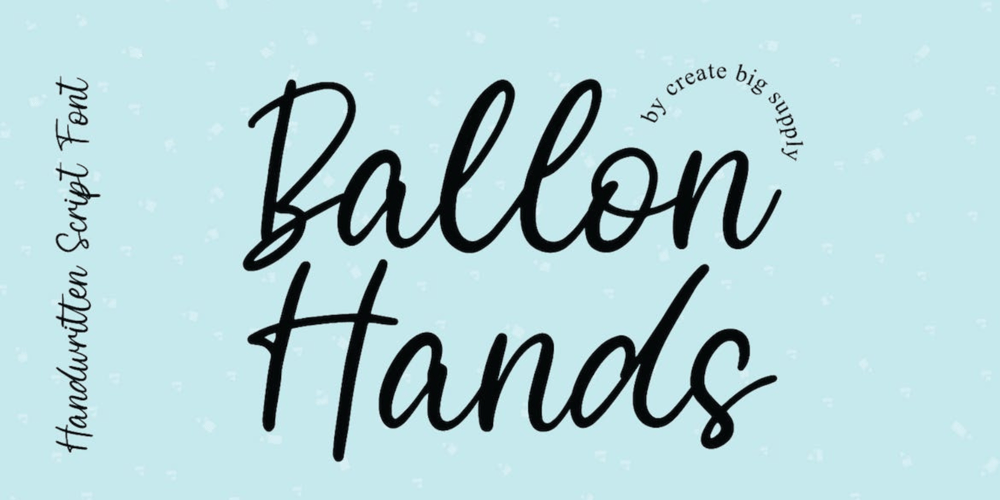
Ballon Hands Font Family was designed by Irpan Maulana and published by Create Big Supply. Ballon Hands contains 1 styles and family package options. Welcome to MyFont, where creativity and expression meet with the enchanting Ballon Hands font. This unique handwriting script font adds a touch of authenticity and charm to all your craft projects. Whether you’re designing websites, SVG designs, home decor items, branding materials, blogs, logos, or invitations, Ballon Hands is a perfect choice.The Ballon Hands font features a natural and flowing script style, capturing the essence of hand-drawn lettering. With both uppercase and lowercase letters, numbers, and punctuations, this font provides versatility in your designs. Additionally, it offers multilingual support, allowing you to create captivating text in various languages.Explore the ligatures included in the Ballon Hands font, enhancing the fluidity and visual appeal of your typography. The font is PUA encoded, enabling easy access and compatibility across different platforms and software.Character Set: The Ballon Hands font offers an extensive character set, including a wide range of symbols, accents, and special characters, allowing you to express your ideas without limitations.Discover the magic of Ballon Hands and unlock your creative potential. Get inspired and elevate your craft projects with this delightful handwriting font.